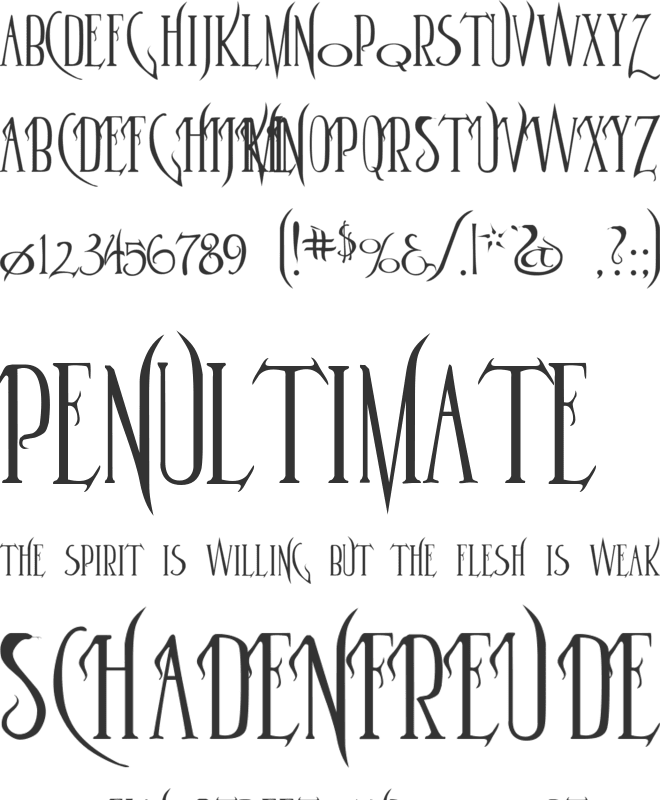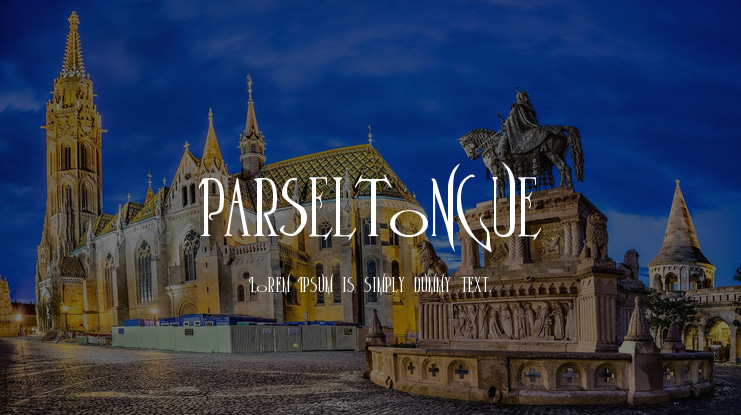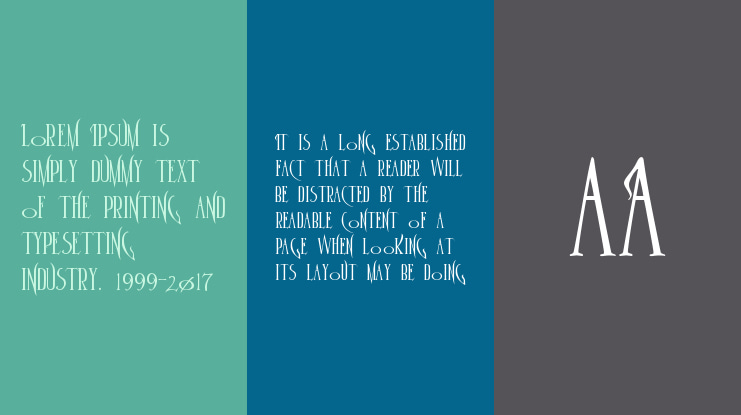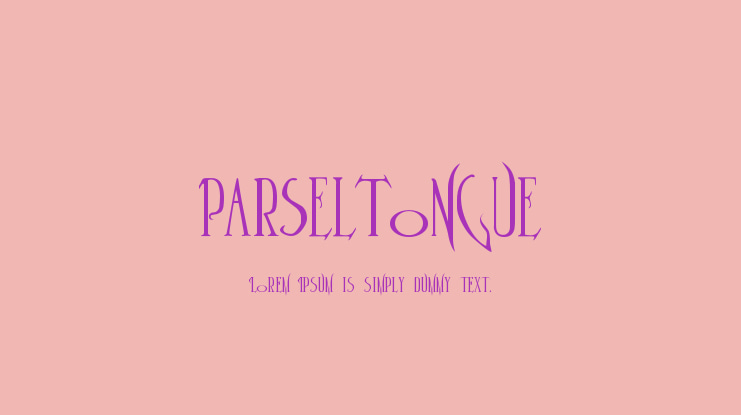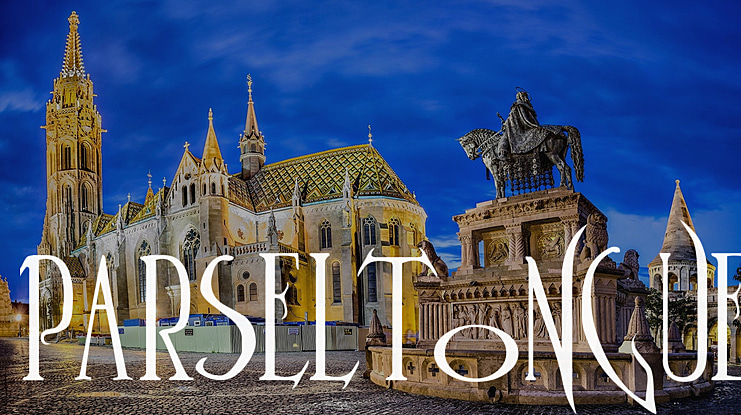
Parseltongue Font
Hello! Thanks so much for checking out "Parseltongue," an original font inspired by J.K. Rowling's Harry Potter books. The serpentine aspects of the font and the font's title have to do with the second book of the series, _The Chamber of Secrets_.
I hope you enjoy this Art Nouveau-ish Potterly font. A word to the wise: it definitely works best for display text.